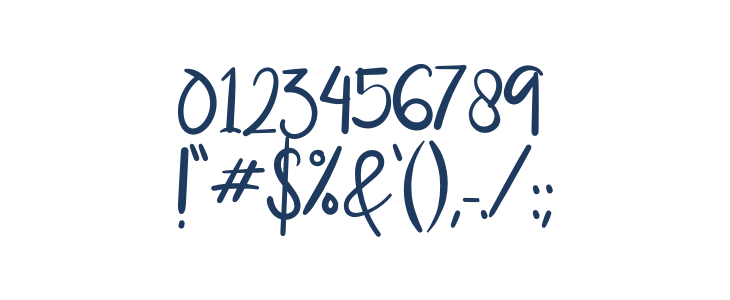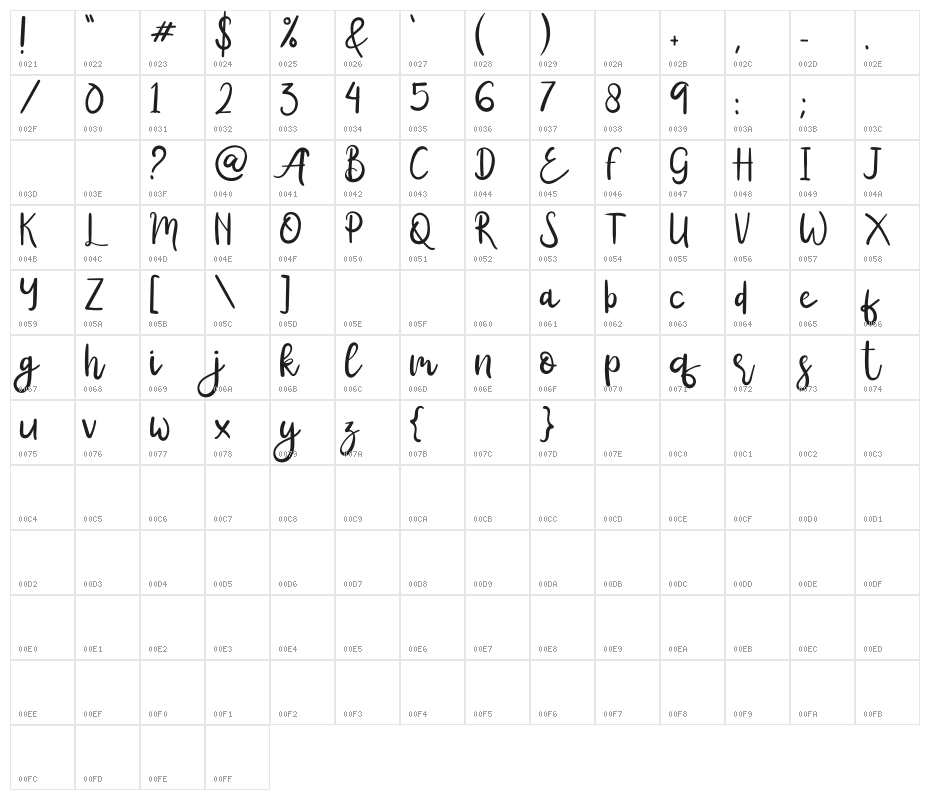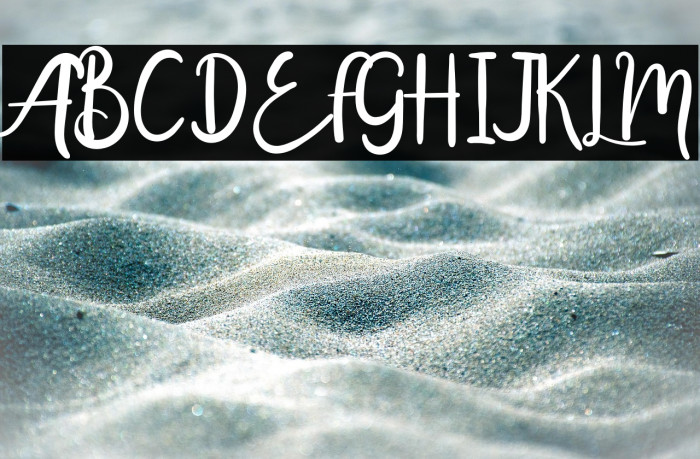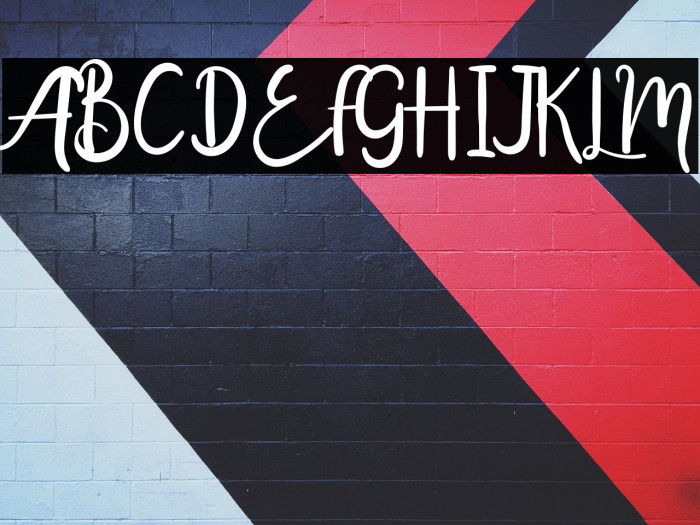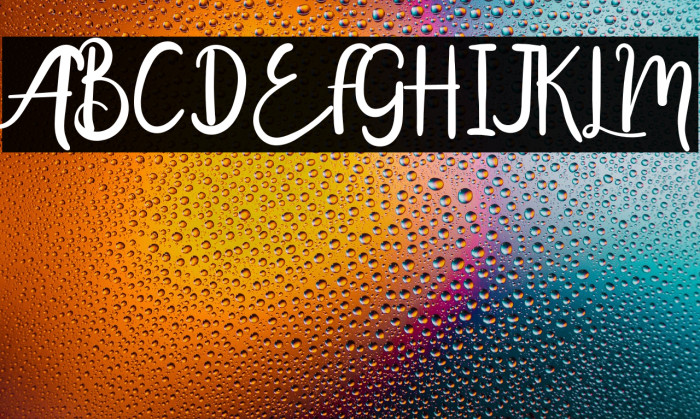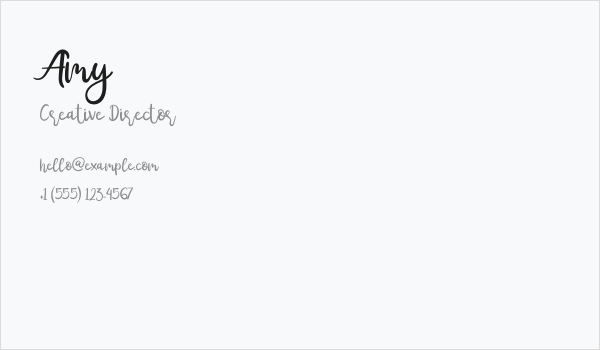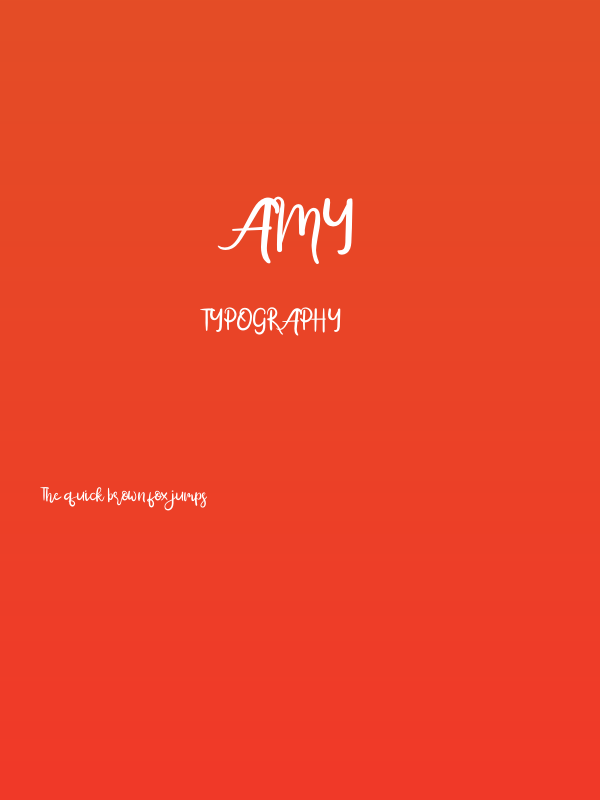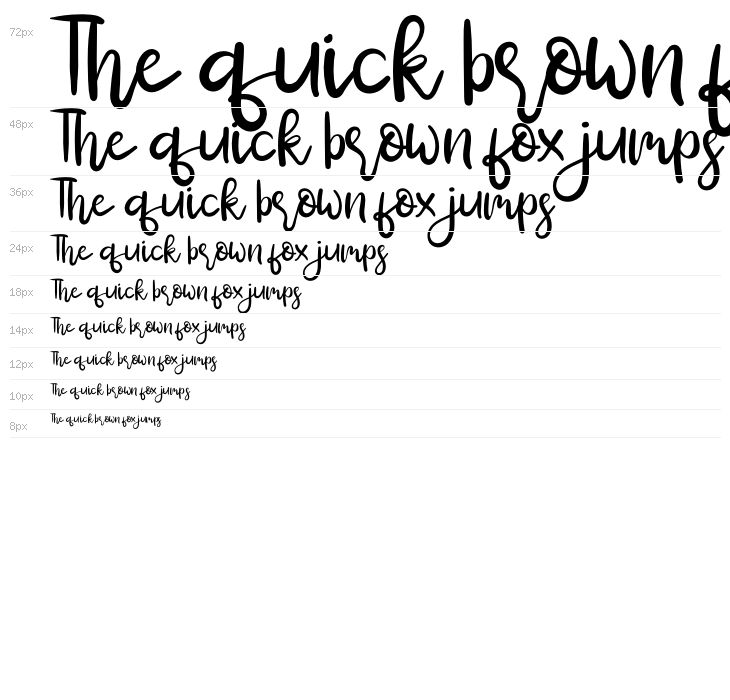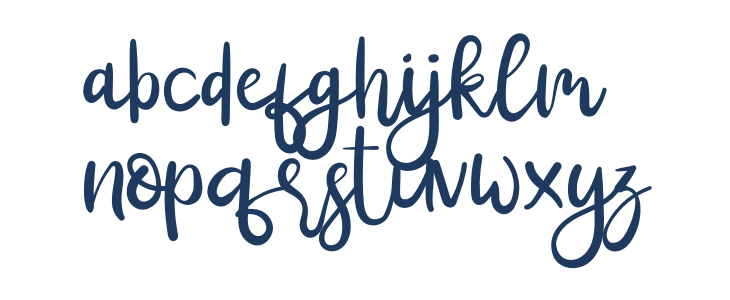
Amy Font
Amy Description
This font features a playful and energetic handwritten style, characterized by its fluid and dynamic strokes. The uppercase letters are tall and slightly narrow, with a whimsical flair that adds a touch of personality. The lowercase letters maintain a consistent flow, with some letters connecting seamlessly, enhancing the script-like appearance. Numbers and special characters follow the same lively and informal style, making them suitable for creative and casual designs. The overall impression is one of spontaneity and charm, ideal for projects that require a personal touch.